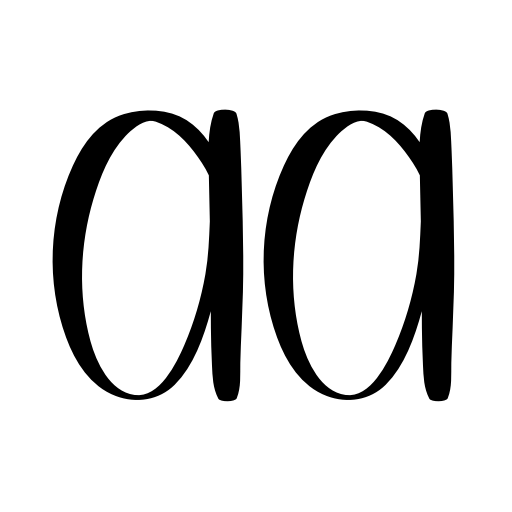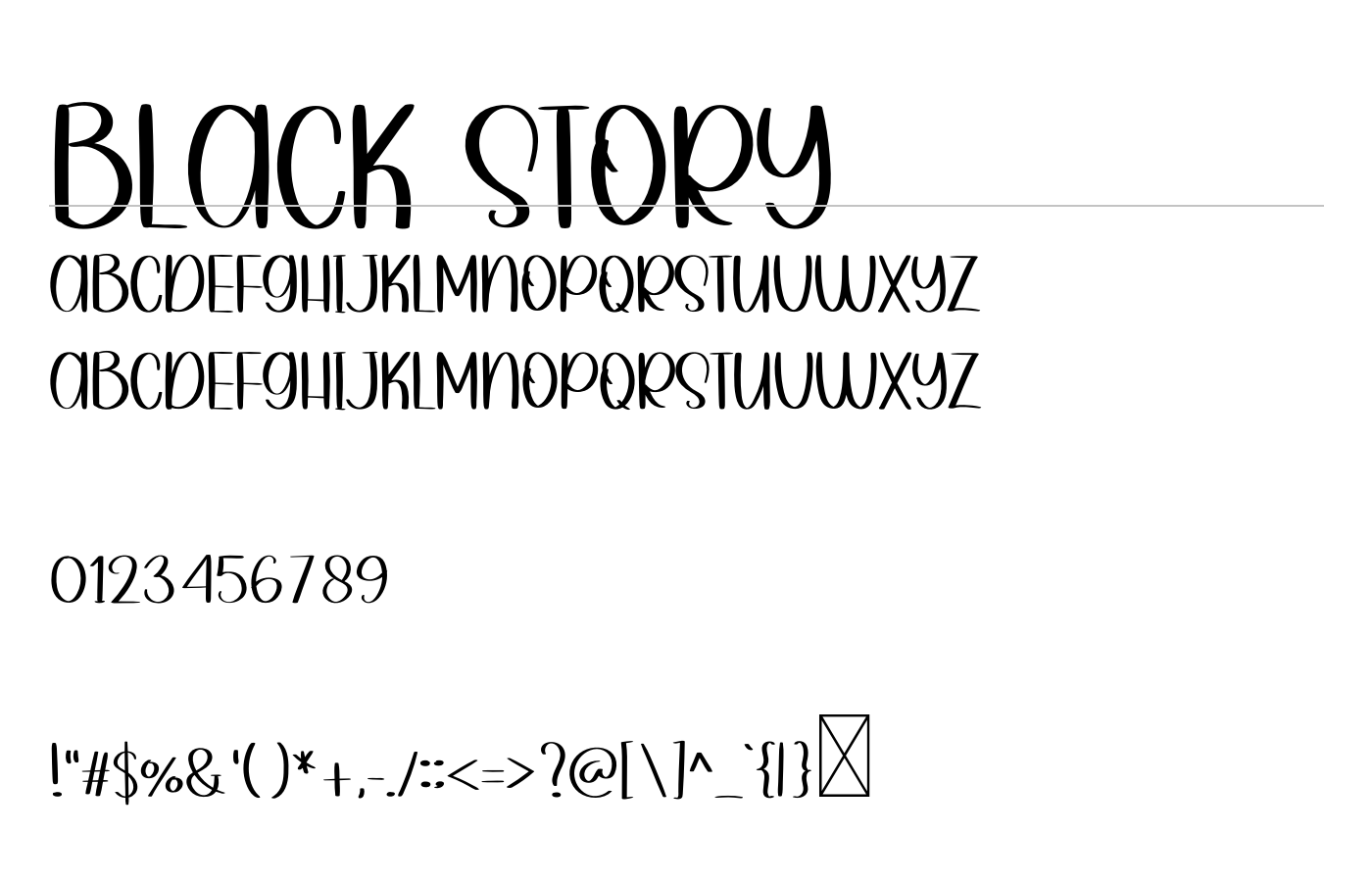
Black Story is a playful and quirky sans serif font with a tall, narrow structure and a handwritten charm. Its light weight and uneven strokes give it an informal, friendly feel, perfect for creative projects or casual branding that wants to stand out with character and warmth. This font works well for logos, invitations, children’s books, and any design that benefits from a unique, personal touch.
Black Story Font
About Black Story Font